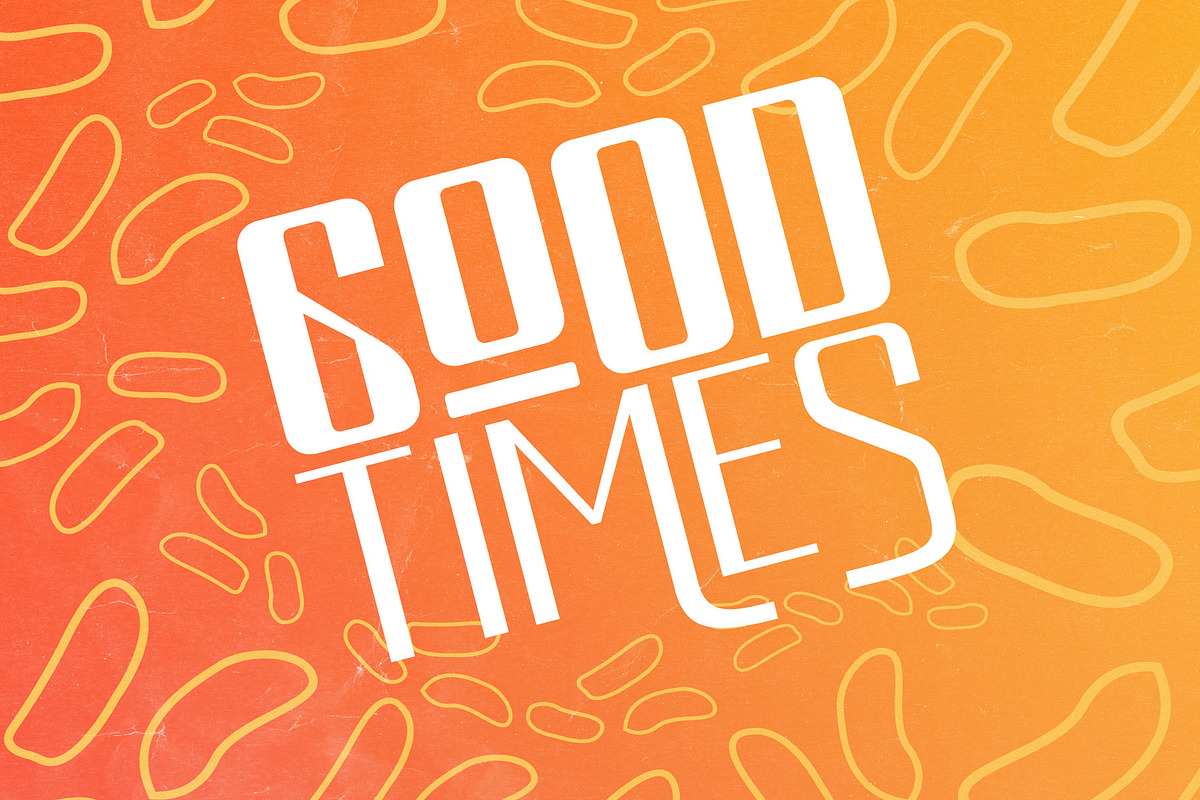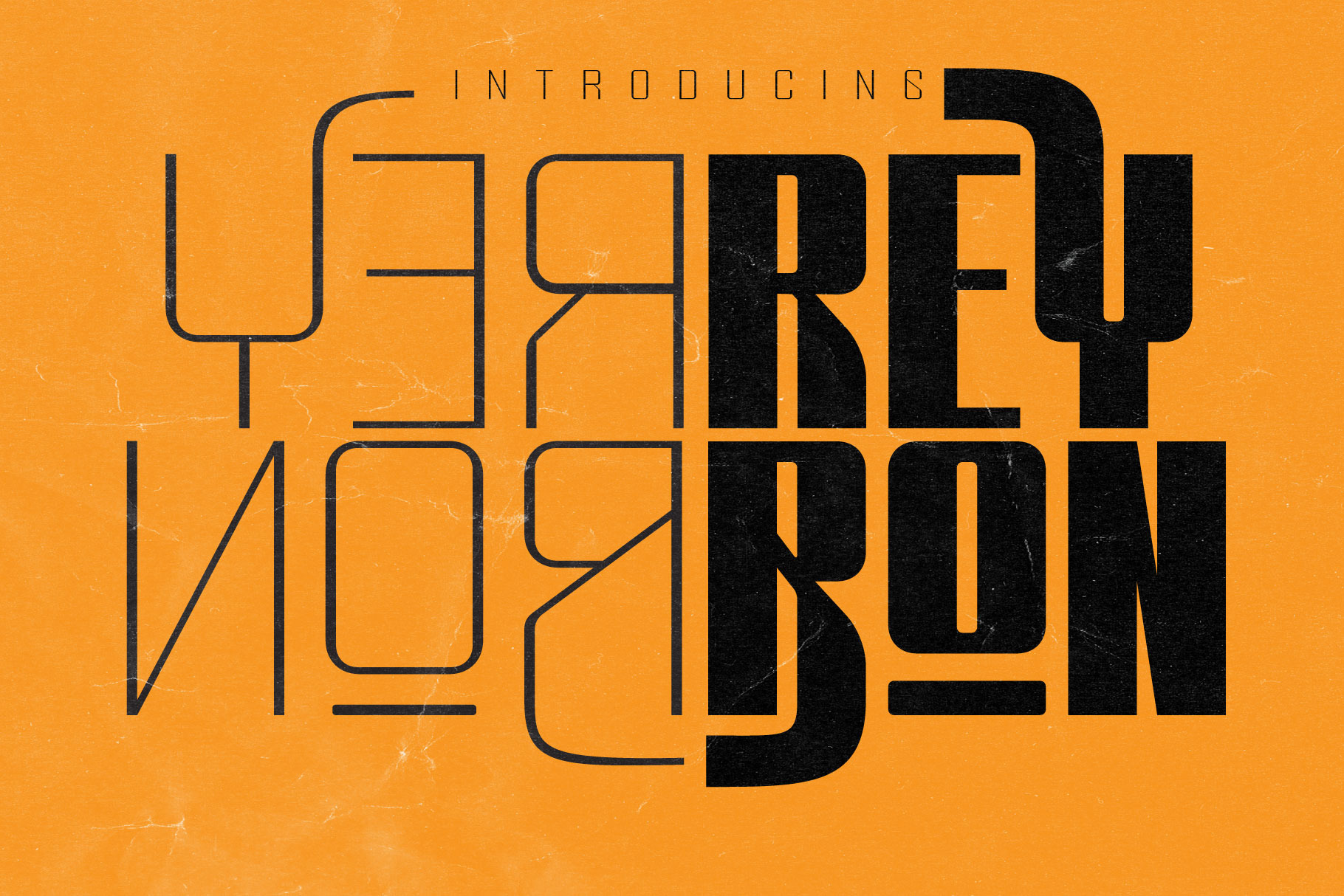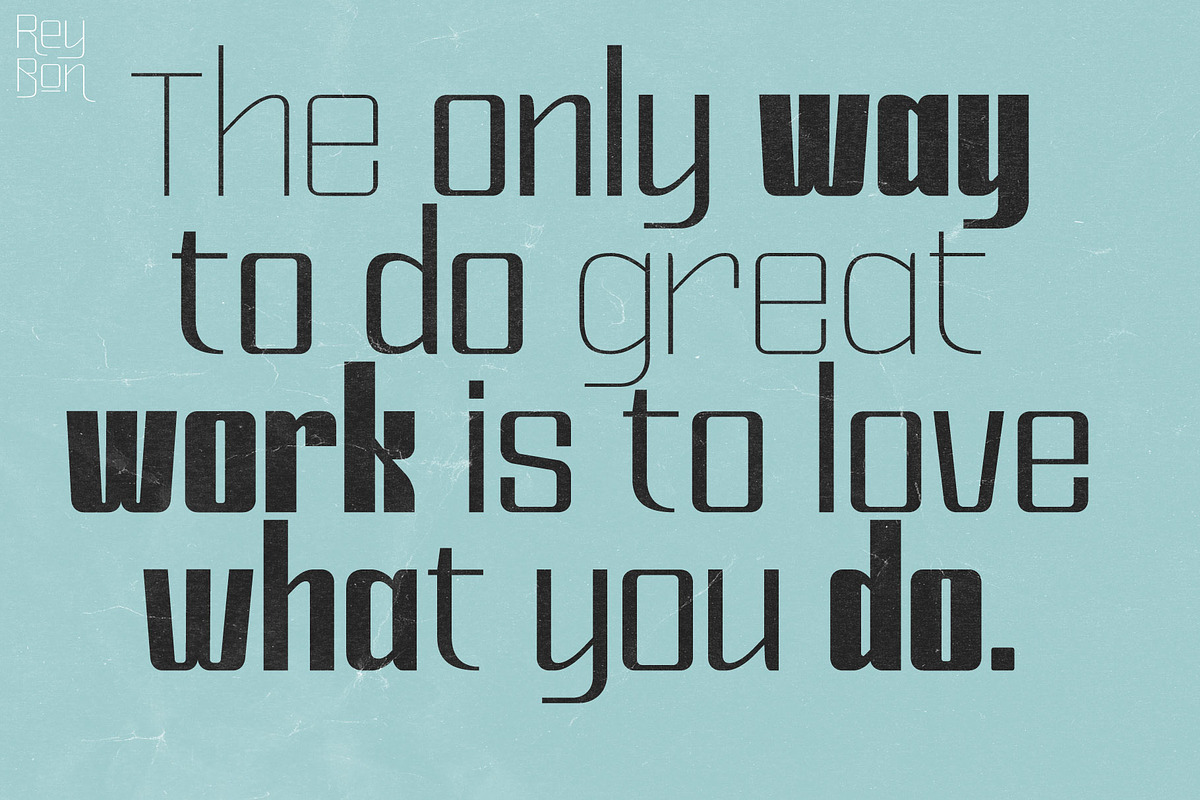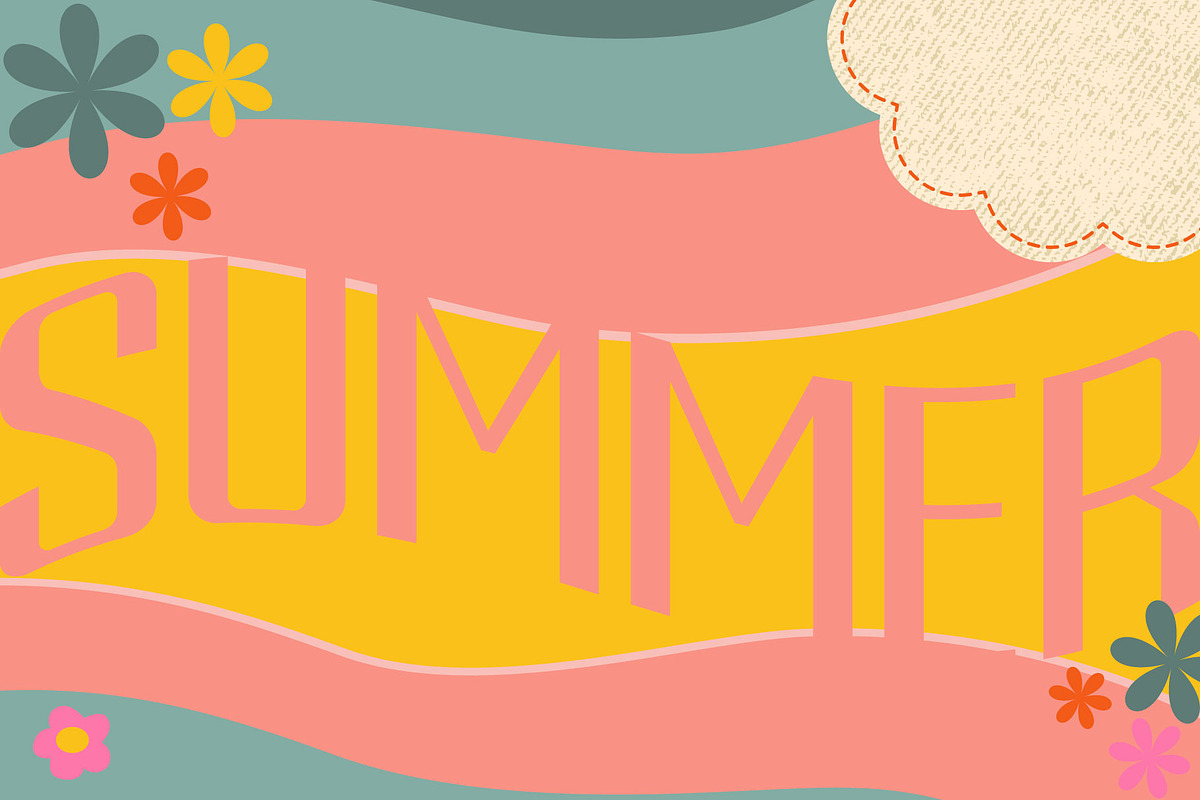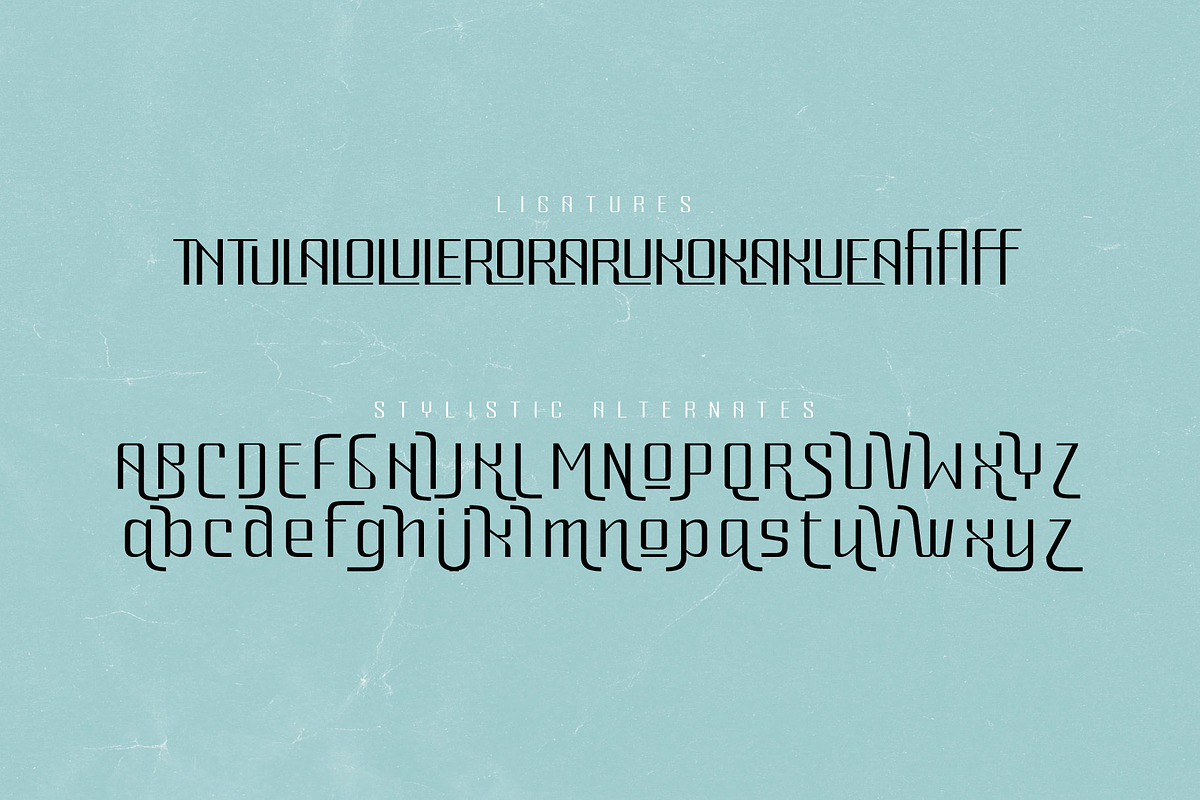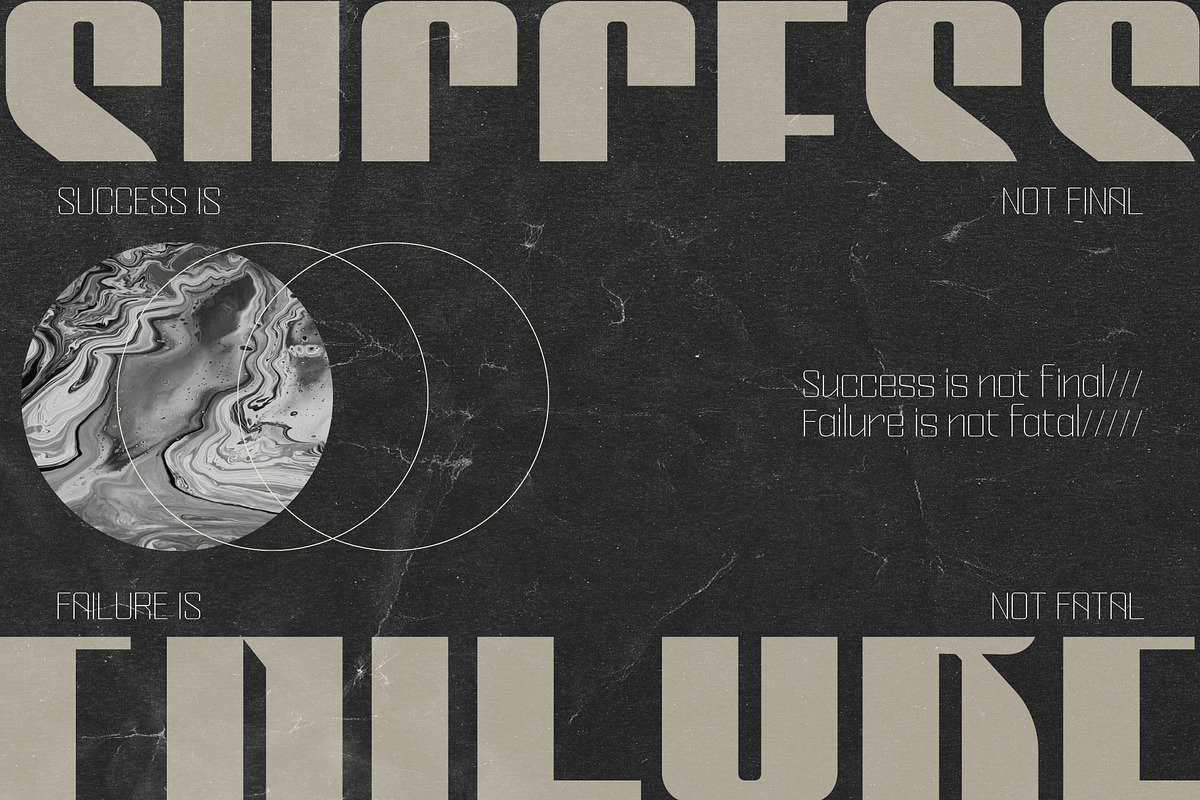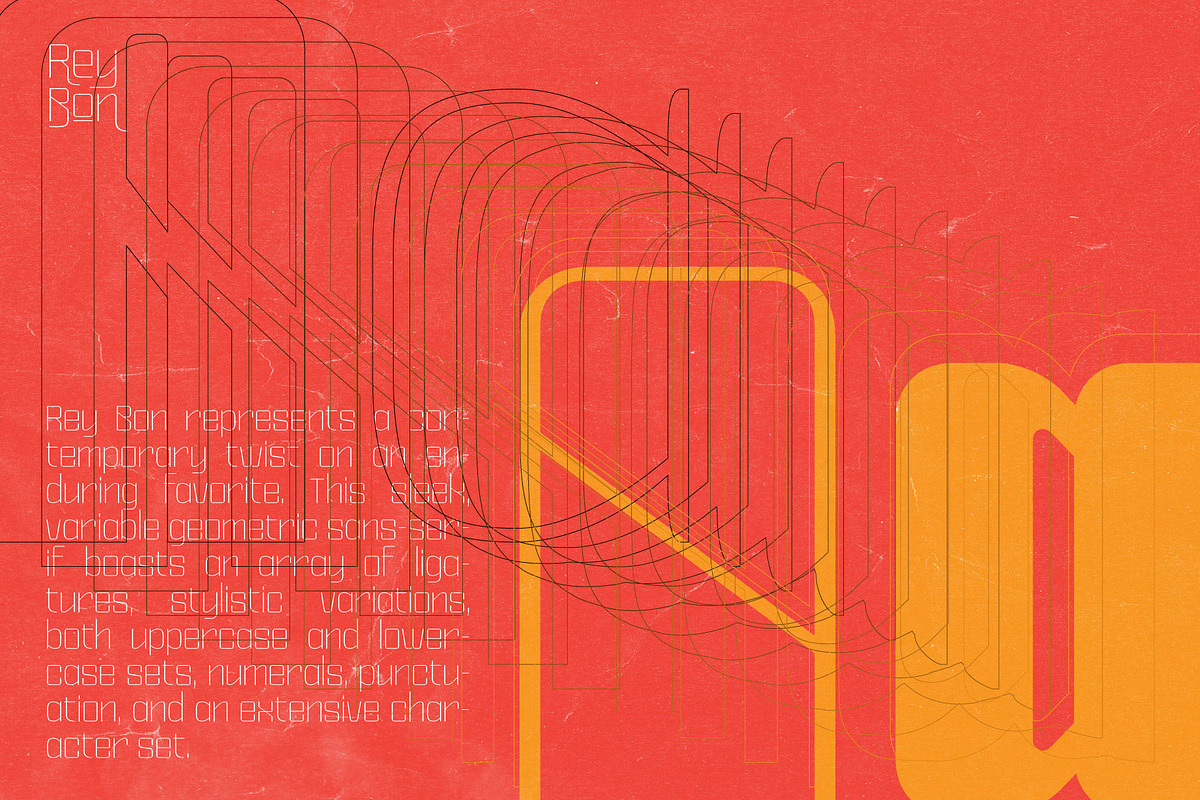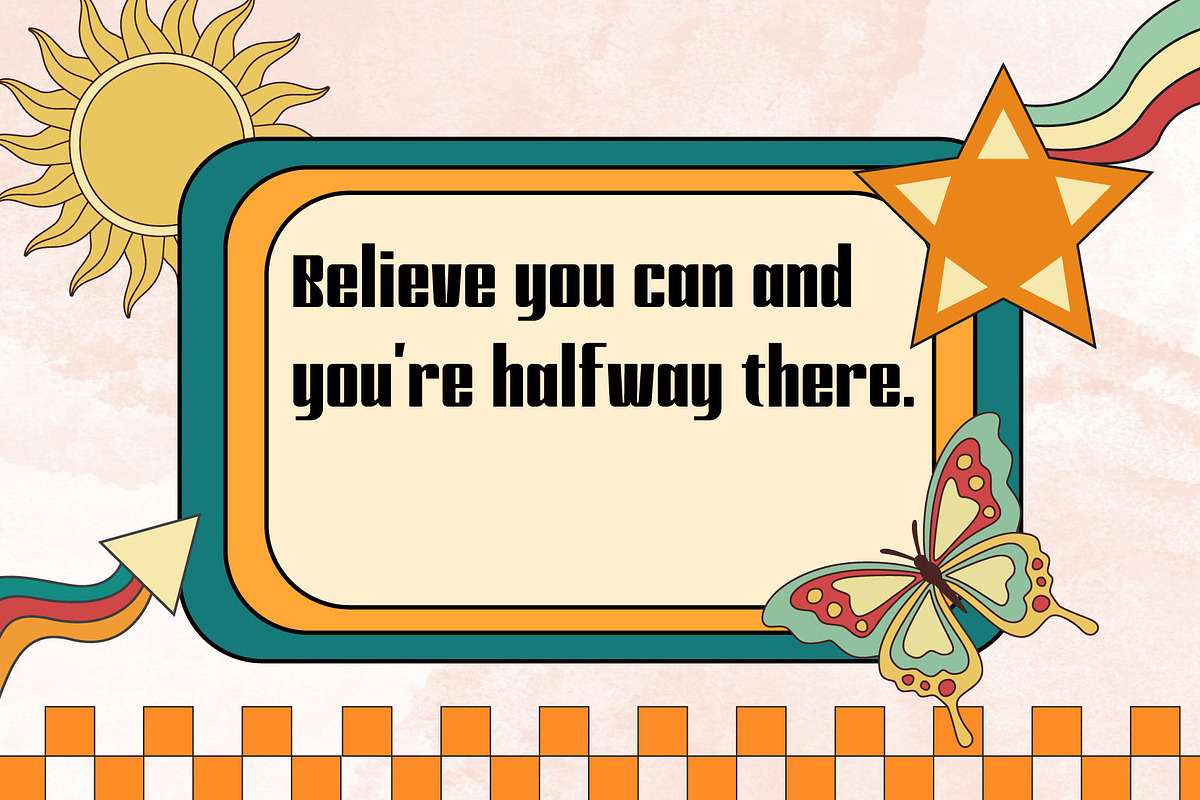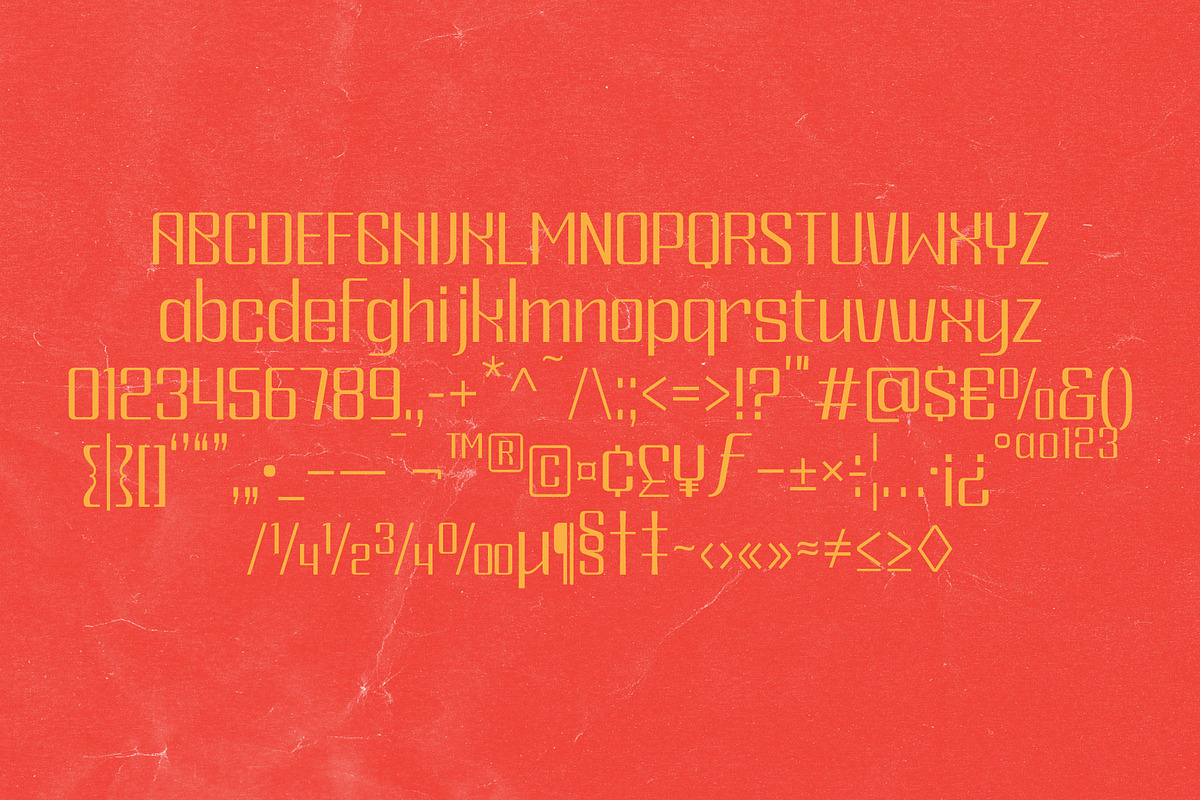
Rey Bon Modern Classic Font
Rey Bon presents a modern classic font that embodies sophistication and versatility. With its collection of 9 weights, this font offers a spectrum of options, allowing designers to play with depth and emphasis, whether it's crafting bold headlines or delicate subtexts.
Beyond its weight variations, Rey Bon is a treasure trove of ligatures, adding a touch of finesse and creativity to typographic compositions. These ligatures, intricately designed and thoughtfully integrated, enhance the visual appeal of text, enabling a seamless flow and aesthetic coherence.
Moreover, Rey Bon boasts a richness in stylistic elements, offering a breadth of design possibilities. From elegant curves to sharp edges, this font allows for nuanced typographic expression, making it a versatile choice for a wide range of design projects.
The meticulous craftsmanship and thoughtful design of Rey Bon make it not just a font but a powerful tool for designers seeking to infuse their creations with a blend of modernity and timeless elegance.